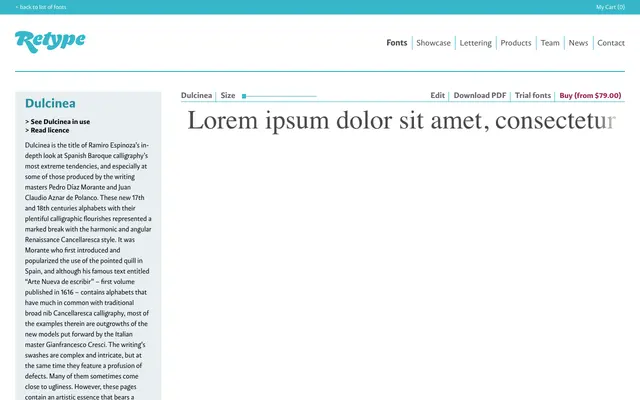
Dulcinea
A serif typeface from Retype, available from $79, with roots in classical Latin letterform traditions.
Dulcinea is a serif offering from Retype, an Argentinian foundry known for its historically grounded type designs and revivals. The page provides limited detail, but the pricing and foundry context suggest a professionally crafted text face suited to editorial and book work. Further style and weight information was not available from the page content provided.
The name and foundry context suggest a classical serif with Latin-influenced design; Retype specialises in revivals and historically-grounded typefaces, positioning this as a transitional or humanist serif.